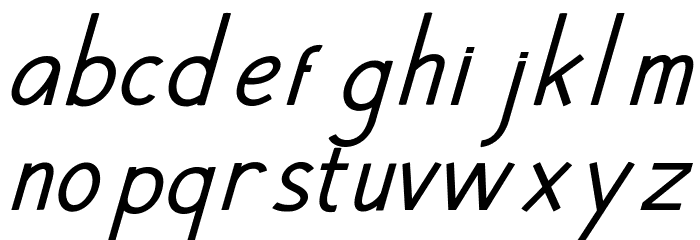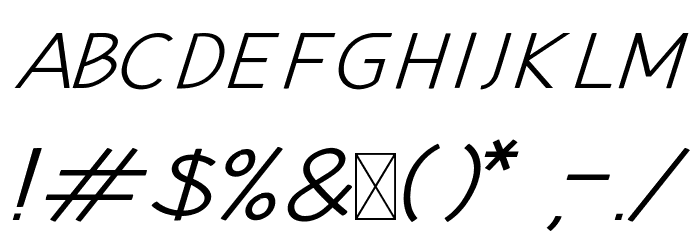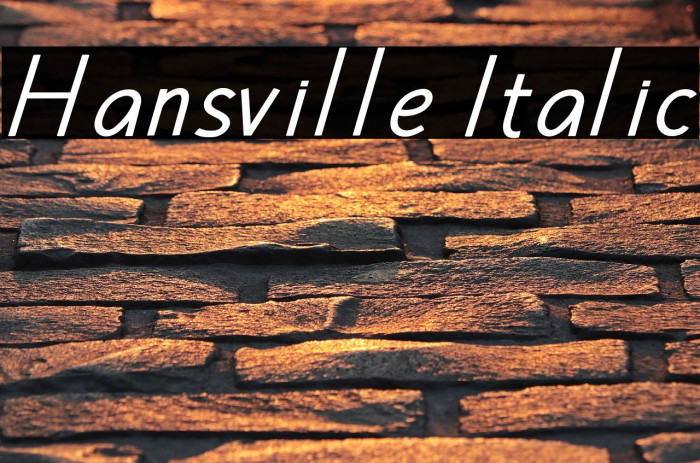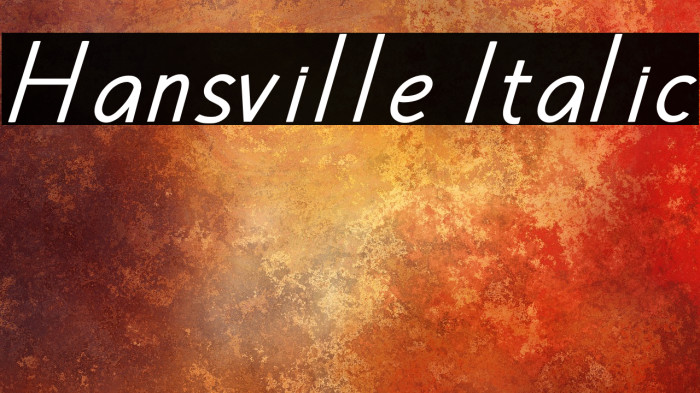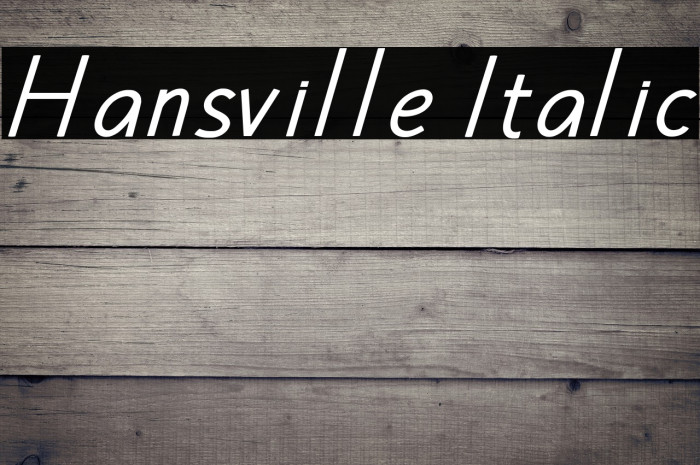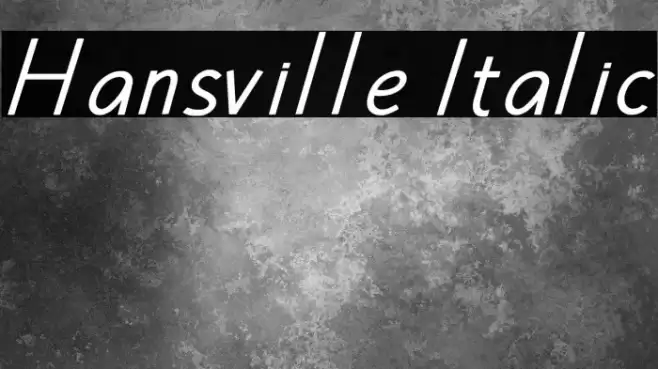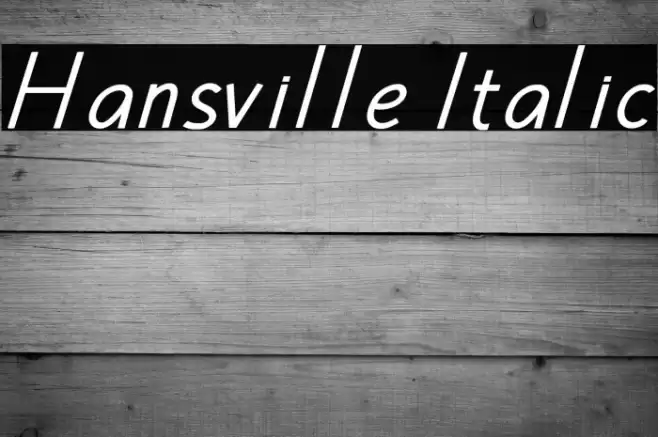
Hansville Italic Font
This font features a sleek and modern italic style, characterized by its clean lines and slightly slanted letters. The uppercase and lowercase letters maintain a consistent slant, providing a sense of motion and elegance. The numerals and special characters are designed to complement the alphabet, ensuring readability and style. The overall design is minimalistic yet sophisticated, making it suitable for a variety of applications. The font's italic nature adds a dynamic and contemporary touch, ideal for projects that require a modern aesthetic.
A sleek, modern italic font with clean lines and a consistent slant.
- Font: Hansville Italic
by Naharstd - Weight: Italic
- Proposed Projects: Ideal for branding, editorial design, advertising, and digital media projects that require a modern and elegant touch.